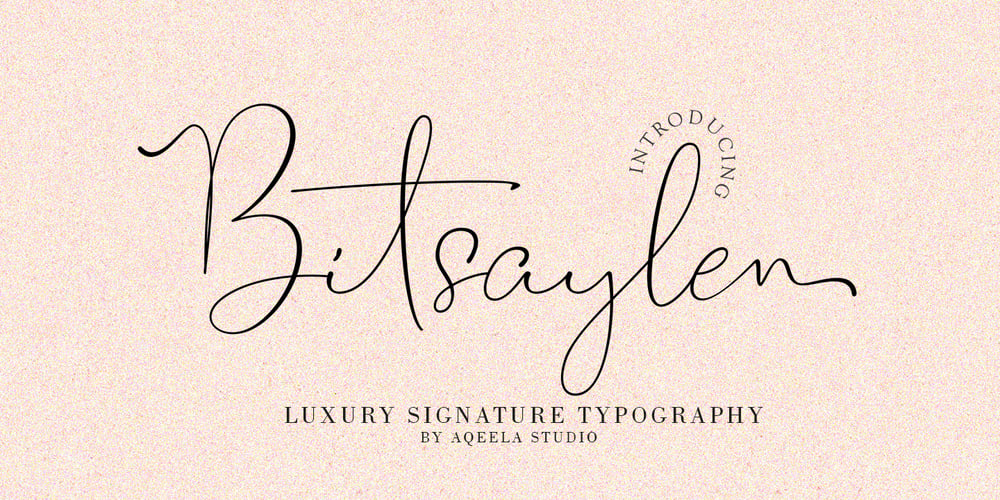
Bitsaylen Font Family was designed by Muhammad Nasir and published by Aqeela Studio. Bitsaylen contains 1 styles and family package options. Bitsaylen is a new script full of elegance and quirk with a playful demeanor and a playful side. Perfect for adding a unique yet relaxed feel, this bag comes with a wide selection of natural looking ligatures.This font is perfect for logos, invitations, wedding designs, social media posts, and more!